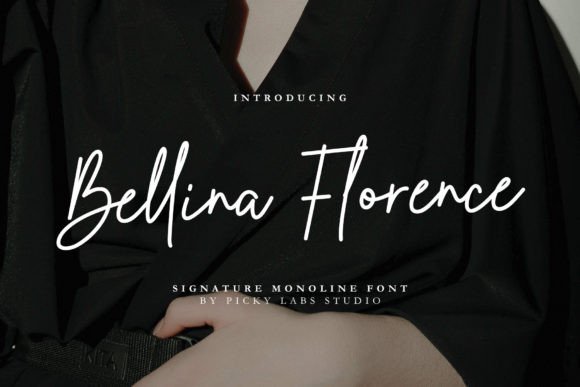
Bellina Florence Font: Elevate Your Designs with Elegance and Sophistication
In the world of typography, fonts play a crucial role in conveying the tone and personality of a brand or design. Among the numerous fonts available, Bellina Florence stands out as a smooth signature monoline font that exudes elegance and sophistication. With its strong character in each letter, Bellina Florence is an excellent choice for various design projects, including branding, logotypes, wedding designs, social media posts, advertisements, product packaging, and more.
Key Features of Bellina Florence Font
- Smooth Signature Monoline Font: Bellina Florence boasts a smooth, flowing design that gives it a signature feel, perfect for creating elegant and refined designs.
- Strong Character in Each Letter: The font’s unique design ensures that every letter has a distinct personality, making it ideal for branding and logotype projects.
- Versatile and Adaptable: Bellina Florence can be used across various design projects, from wedding designs and social media posts to product packaging and advertisements.
Ideal Design Applications for Bellina Florence Font
Bellina Florence font is suitable for a wide range of design projects, including:
- Branding Projects: Create a lasting impression with Bellina Florence’s elegant and sophisticated design, perfect for logos, business cards, and brand guidelines.
- Logotypes: The font’s strong character in each letter makes it an excellent choice for logotypes that require a unique and memorable design.
- Wedding Designs: Add a touch of elegance to wedding invitations, stationery, and decorations with Bellina Florence’s beautiful and refined design.
- Social Media Posts: Elevate your social media presence with Bellina Florence’s smooth and sophisticated design, perfect for creating engaging and shareable content.
- Advertisements: Grab attention with Bellina Florence’s elegant and refined design, suitable for print and digital advertisements.
- Product Packaging: Add a touch of sophistication to product packaging with Bellina Florence’s unique and memorable design.
- Product Designs: Create stunning product designs with Bellina Florence’s elegant and refined font, perfect for product labels, tags, and descriptions.
- Label and Photography: Use Bellina Florence as a watermark or for label designs to add a touch of elegance to your photography projects.
- Invitation and Stationery: Create beautiful and refined invitations and stationery with Bellina Florence’s smooth and sophisticated design.
Typography Tips for Using Bellina Florence Font
To get the most out of Bellina Florence font, consider the following typography tips:
- Pair with Complementary Fonts: Combine Bellina Florence with complementary fonts to create a harmonious and visually appealing design.
- Adjust Font Sizes and Weights: Experiment with different font sizes and weights to create visual hierarchy and add depth to your design.
- Use Color Effectively: Select colors that complement the elegant and sophisticated design of Bellina Florence, and use them consistently throughout your design.
Benefits of Using Bellina Florence Font
By choosing Bellina Florence font for your design projects, you can enjoy several benefits, including:
- Elegance and Sophistication: Bellina Florence adds a touch of elegance and sophistication to your designs, making them more refined and memorable.
- Versatility: The font’s adaptability makes it suitable for various design projects, from branding and logotypes to wedding designs and social media posts.
- Unique Character: Bellina Florence’s strong character in each letter ensures that your designs stand out and are easily recognizable.
Bellina Florence font is an excellent choice for designers seeking to add elegance and sophistication to their projects. With its smooth signature monoline design, strong character in each letter, and versatility, Bellina Florence is suitable for a wide range of design applications. By incorporating Bellina Florence into your design workflow, you can create stunning and memorable designs that elevate your brand or project.